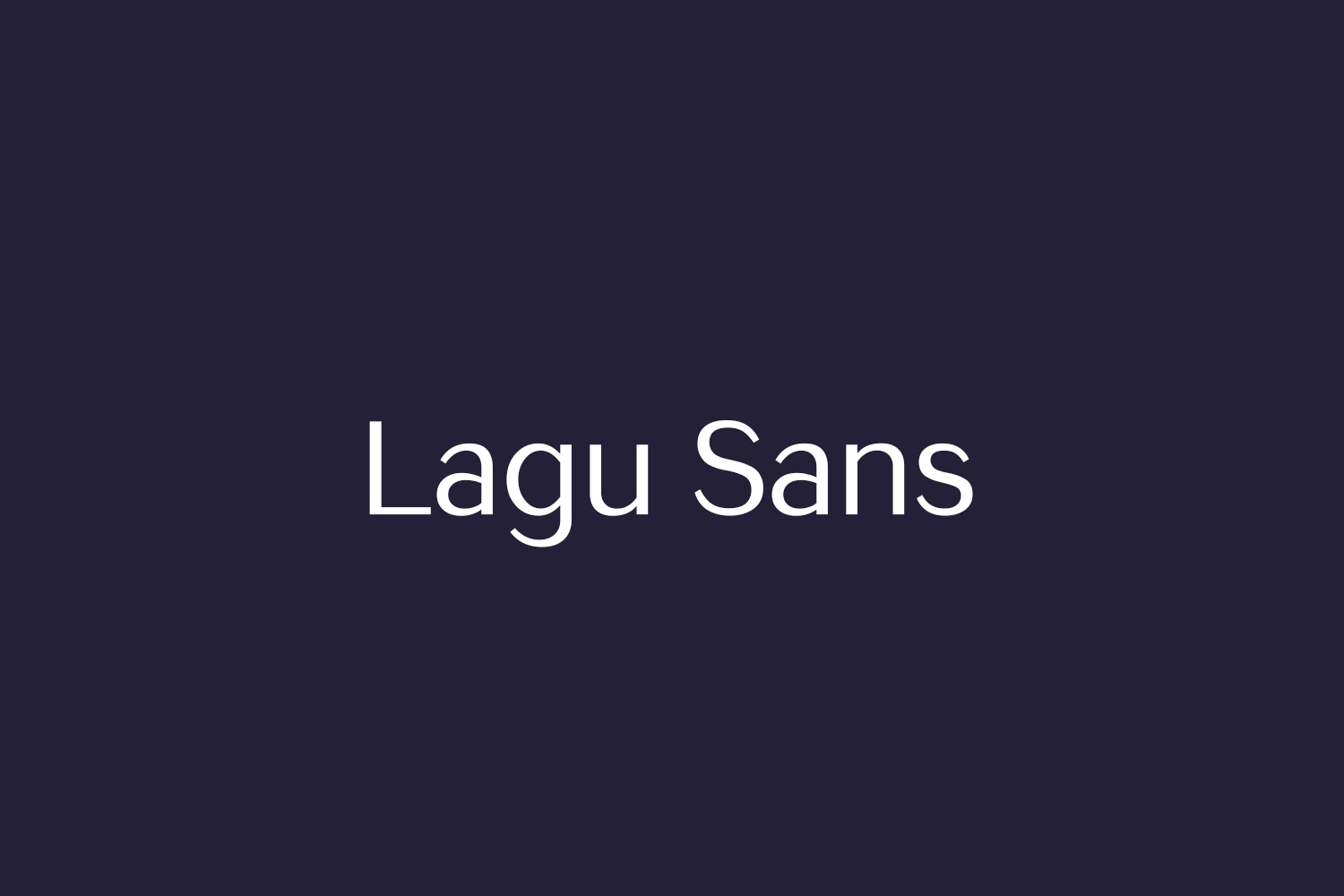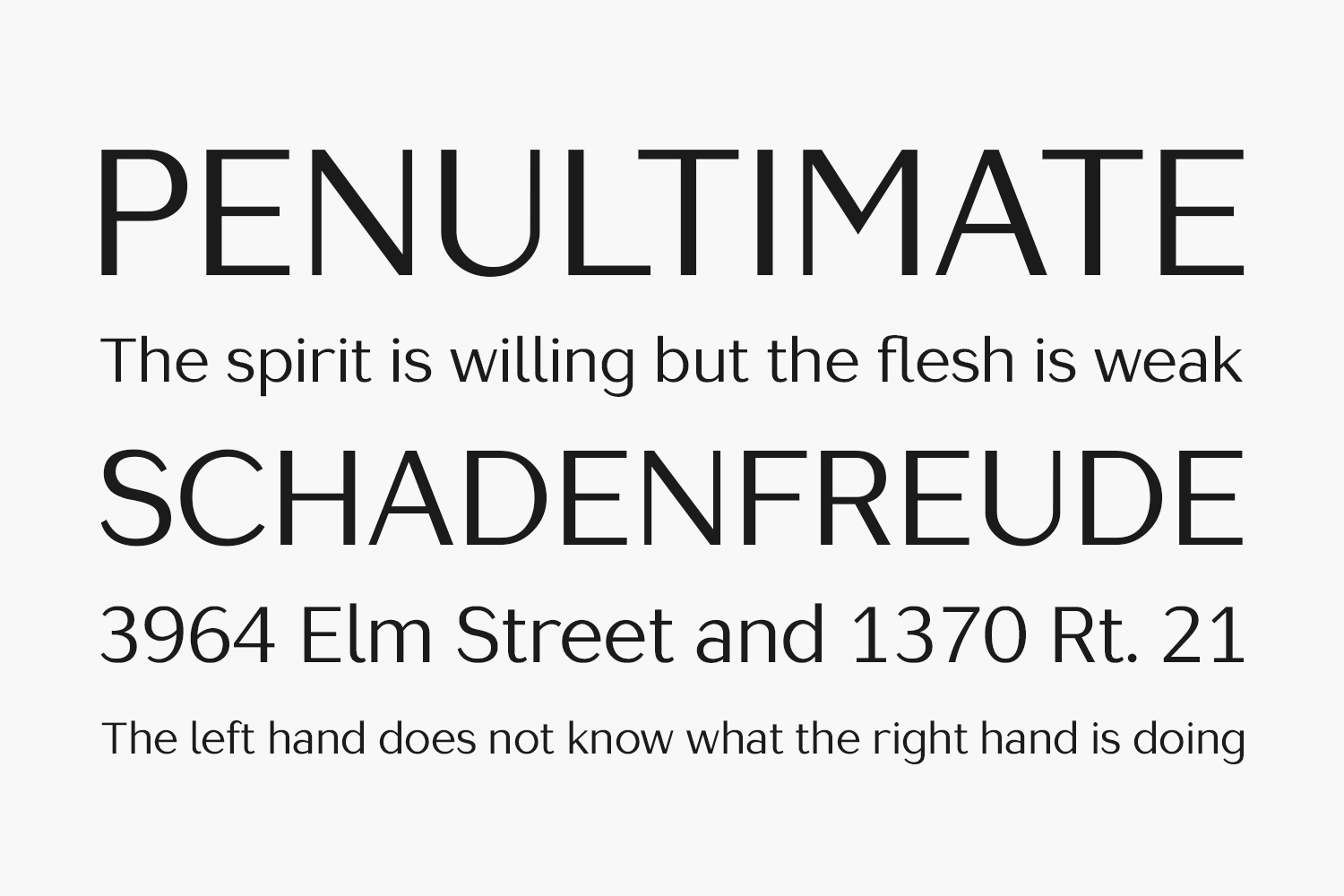
Lagu Sans
Lagu Sans Free Font Family is a contemporary typeface that blends a geometric inspiration with a charming contrast between thick and thin strokes. Alessio Laiso has designed Lagu Sans in 18 styles: 9 weights ranging from Thin to Black, with matching, beautiful italics. The companion Lagu Serif makes the Lagu family a real workhorse for any use, including web, digital, print, branding, and signage.
Lagu Sans has a large x-height and open counterforms, making it easily readable. It comes with powerful OpenType features, including ligatures, alternative glyphs, small caps, fractions, tabular figures, old-style figures, and more. The Lagu family supports 219 languages, covering 100% of the Latin Plus character set.